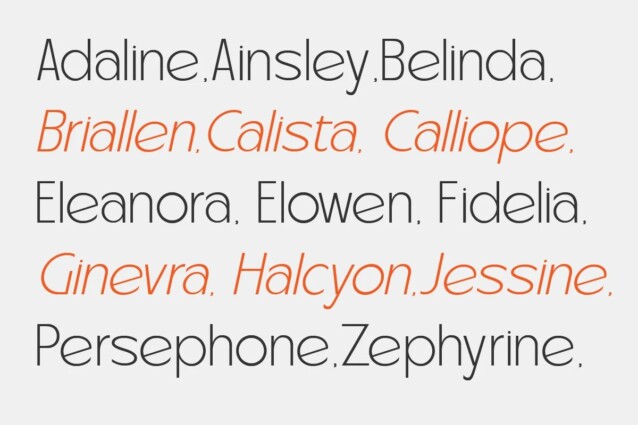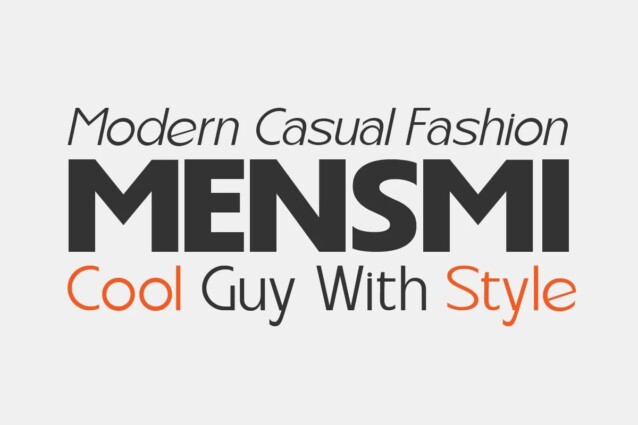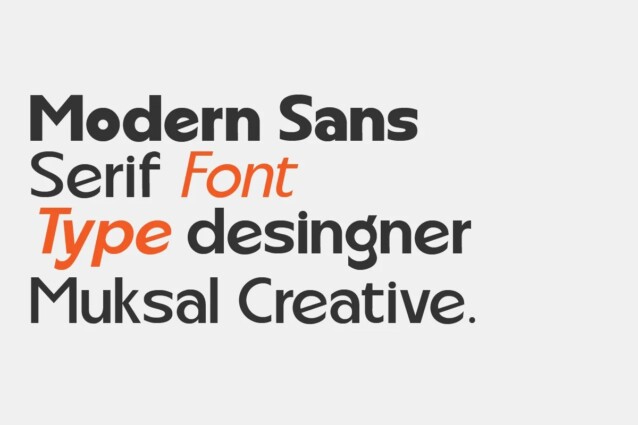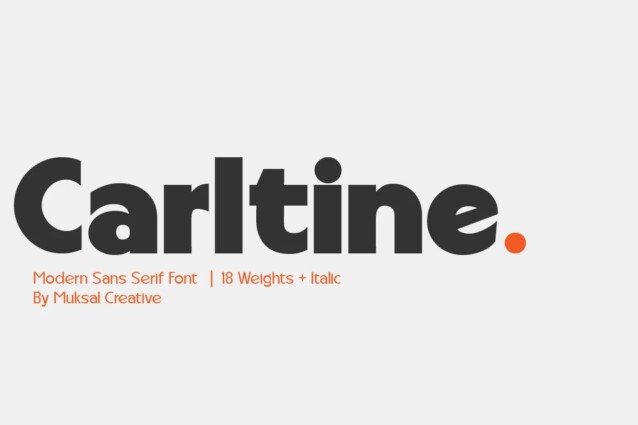
Carltine Font is the embodiment of modern typographic design, seamlessly merging precision and simplicity into a versatile typeface. Simply Conception has 18 families Regular and italic font, starting from the small thin to the largest black. This typeface is versatile and can be used successfully in magazines, posters, branding, websites.